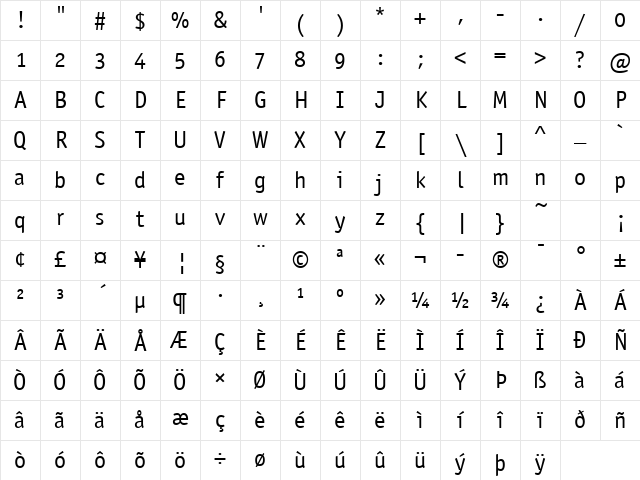
Officina Sans OS ITC TT Book
Design Context for Officina Sans OS ITC TT
Officina Sans OS ITC TT is a composed and adaptable typeface that performs quietly and consistently across a wide range of design contexts.